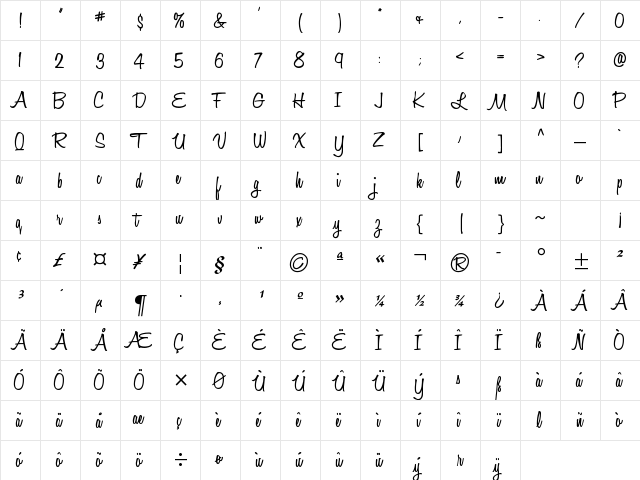
Honey Script SemiBold
Design Context for Honey Script Typeface
Honey Script flows with the natural rhythm of handwritten lettering, making it ideal for designs that call for warmth and personal expression. Its bold stroke weight gives it real presence on the page.
Font Pairing: Combine Honey Script with a simple geometric sans for maximum contrast — the tension between flowing curves and clean structure is a classic typographic pairing.
Pro Tip: Use Honey Script for short runs of text — names, titles, or taglines. Extended body copy in script faces tires the eye quickly.